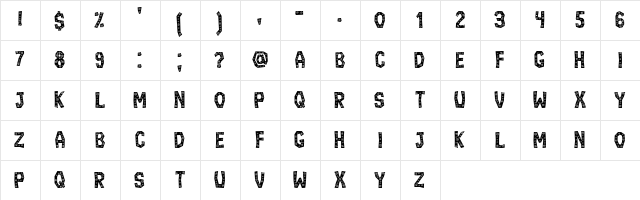
Ignorant Flat Regular
Design Context for Ignorant Flat Typeface
Ignorant Flat is a composed and adaptable typeface that performs quietly and consistently across a wide range of design contexts.